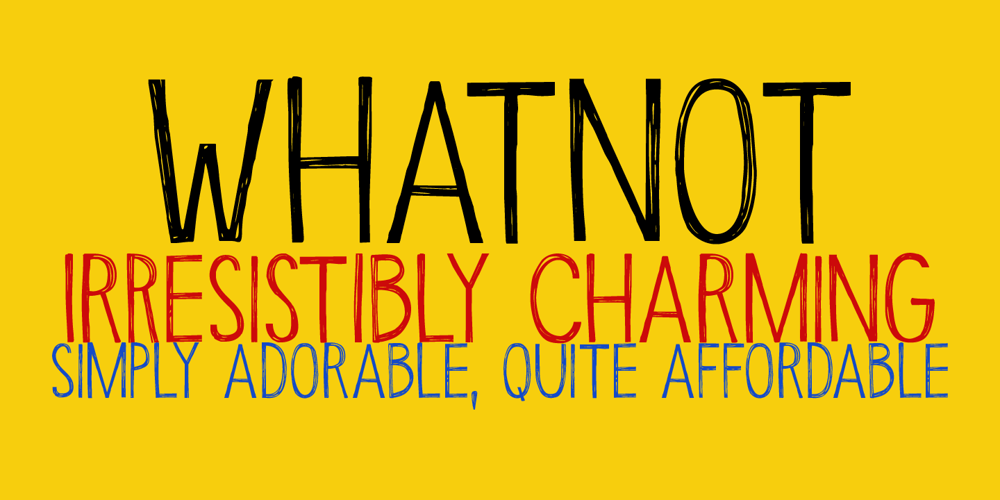
Whatnot Font Family was designed by David Kerkhoff and published by Hanoded. Whatnot contains 2 styles and family package options. Whatnot is a beautiful, hand drawn all caps font. It was made with a fine-liner on smooth paper. Whatnot can be used for almost all designs, in particular for posters, books and ads. Whatnot comes with a full range of alternate lower case letters and upper and lower case are freely interchangeable.